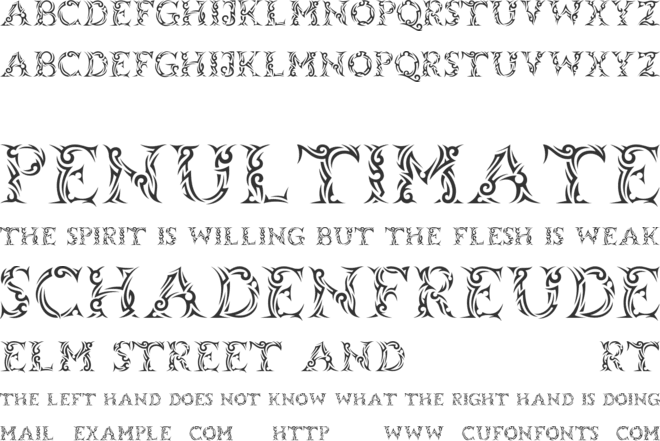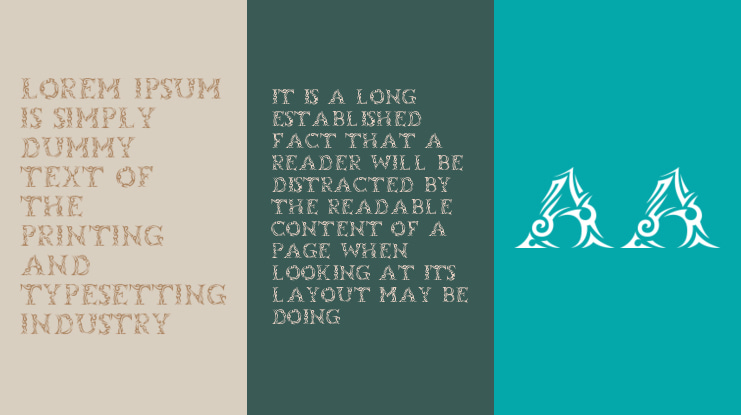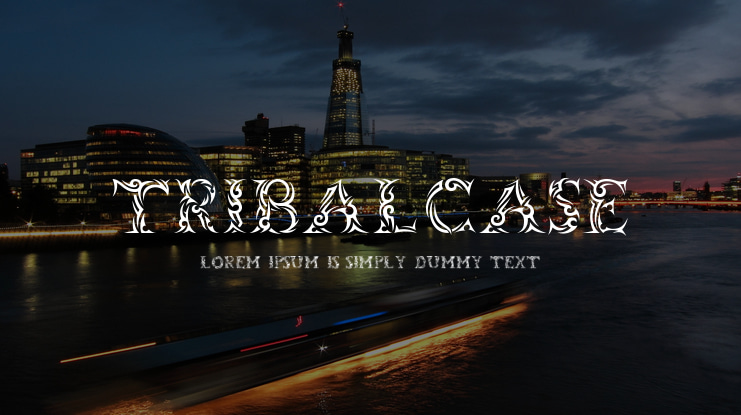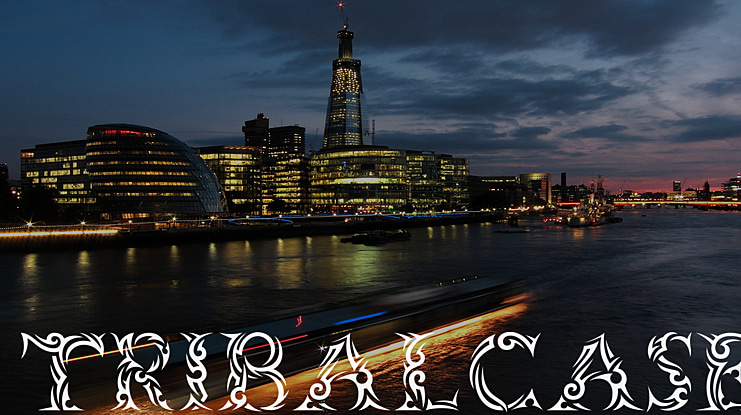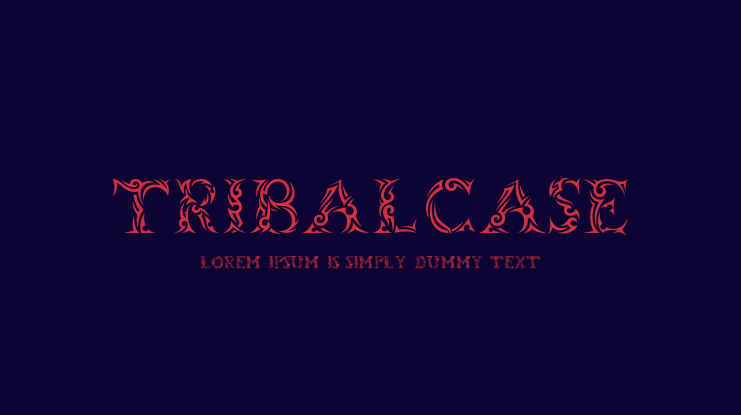
Tribalcase Font
Roland Huse
Tribal Case is an all caps Tattoo font great for display, ads, POSTERS, MAGAZINES, T-SHIRTS, LOGOS, logotype, tattoo initials.
Contains letters A-Z.